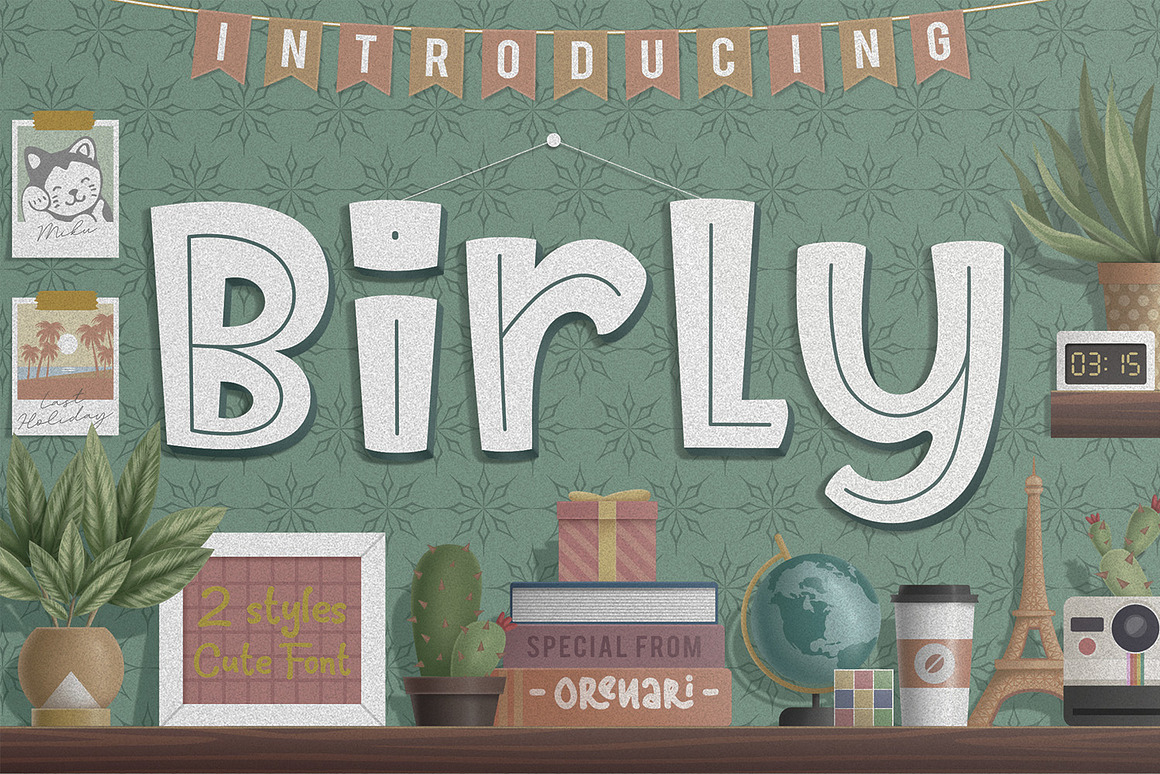
Birly ~ 2 Styles Cute Font
Birly 2 Styles Cute Font is perfect for children's book illustrations, baby product branding, cute character design, nursery decorations, playful greeting cards, toy packaging, kids' clothing labels, sweet bakery branding, adorable social media graphics, and whimsical craft projects.
What makes Birly 2 Styles Cute Font exciting is its irresistibly charming character that instantly evokes feelings of warmth, joy, and innocent playfulness through its adorable letterforms. The font features delightfully rounded shapes with sweet, endearing details that create an atmosphere of pure cuteness and childhood wonder. Its carefully crafted dual-style approach provides designers with versatile options for creating heartwarming visual experiences that appeal to both children and adults who appreciate adorable aesthetics, making it perfect for brands that want to communicate love, care, and gentle happiness.
Birly 2 Styles Cute Font family includes two distinct style variations that complement each other beautifully, often featuring different levels of playfulness and decorative elements. The styles may include regular and outlined versions, solid and hollow variations, or different ornamental treatments that enhance the font's cute aesthetic, providing designers with flexible options for creating layered typographic compositions and adorable brand identities.
This delightful typeface has become increasingly popular among designers working on family-friendly and child-oriented projects. Birly 2 Styles Cute Font Free Download offers a wonderful opportunity to experience this charming font package before purchase. The font's character set includes sweet symbols and adorable glyphs that work perfectly for children's industry applications. Whether you're designing for daycare centers, children's entertainment, or family lifestyle brands, Birly 2 Styles Cute Font provides the heartwarming appeal your project needs. Its versatile nature makes it suitable for various applications including birthday party invitations, educational materials, pet-related branding, and comfort-focused lifestyle products, ensuring your typography choices create emotional connections and positive associations while fostering feelings of safety, happiness, and unconditional love through its genuinely endearing visual personality that brings smiles to faces.